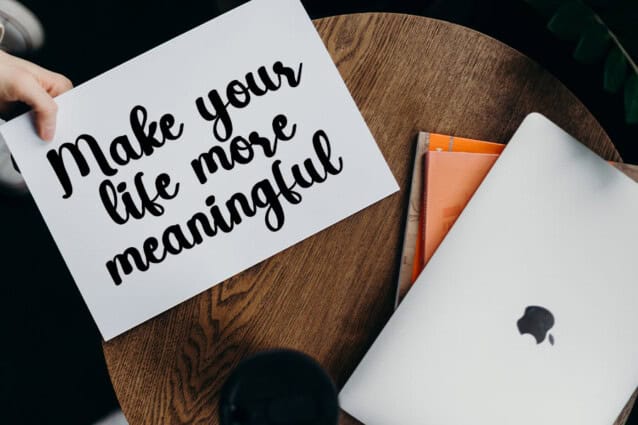
Simple Life Script Font
Simple Life Script Font is a romantic and dainty script font. It is the best choice for creating eye catching logos, branding and quotes. Every letter has a unique and beautiful touch, which will make your design come alive!